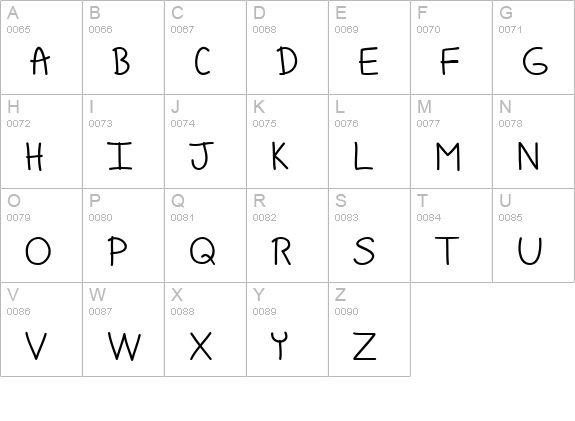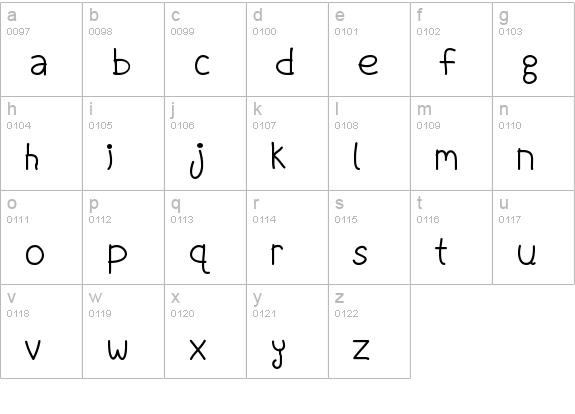
Fight For Our Love (Bold)Regular Font Details
Introducing Fight For Our Love, a powerful and captivating typeface that exudes strength and determination. With its bold and striking design, this font commands attention and leaves a lasting impression. Fight For Our Love is the perfect choice for projects that require a strong and impactful visual presence. Whether you're designing a logo, creating a poster, or crafting a headline, this font will help you convey your message with confidence and authority. Not only does Fight For Our Love deliver a bold aesthetic, but it also offers versatility in its usage. With multiple weights and styles available, you can easily adapt this font to suit various design needs and preferences. From sleek and modern to edgy and rebellious, the possibilities are endless. One of the most remarkable aspects of Fight For Our Love is that it is freely available to download at FontsMarket.com. This means that you can access this incredible font without any cost or limitations. Now, you can add this stunning typeface to your collection and unleash its potential in all your creative endeavors. So, don't hesitate to embrace the power and impact of Fight For Our Love. Download it today from FontsMarket.com and let your designs speak volumes with its bold and captivating presence.